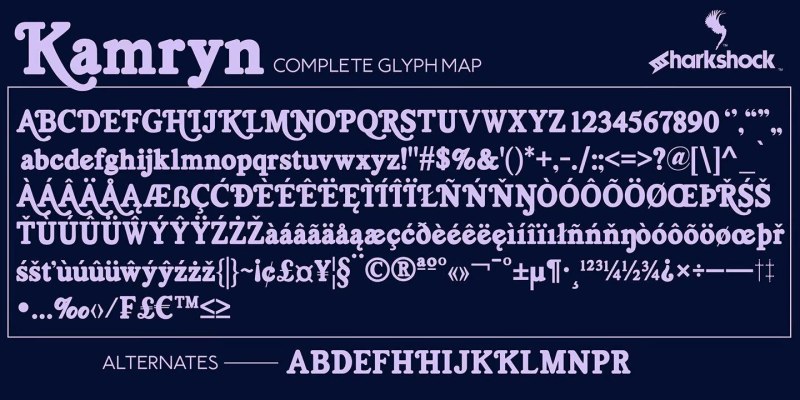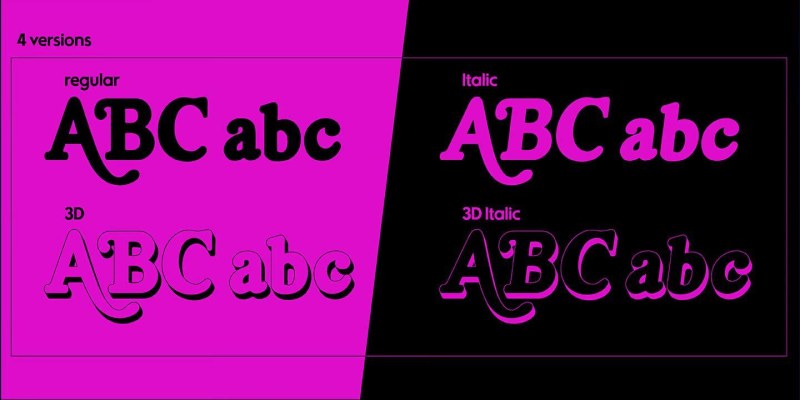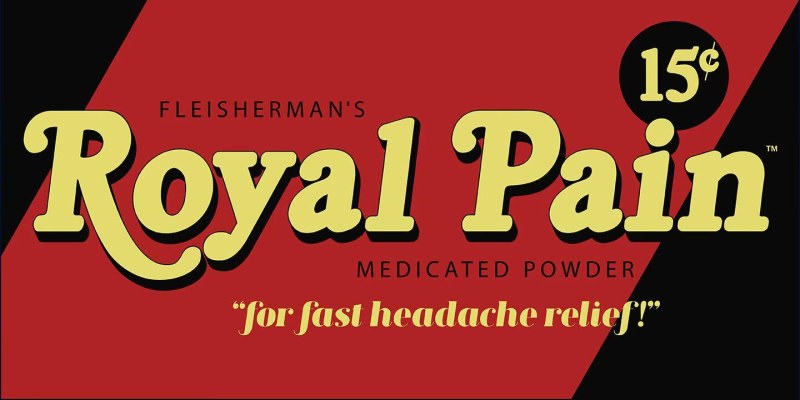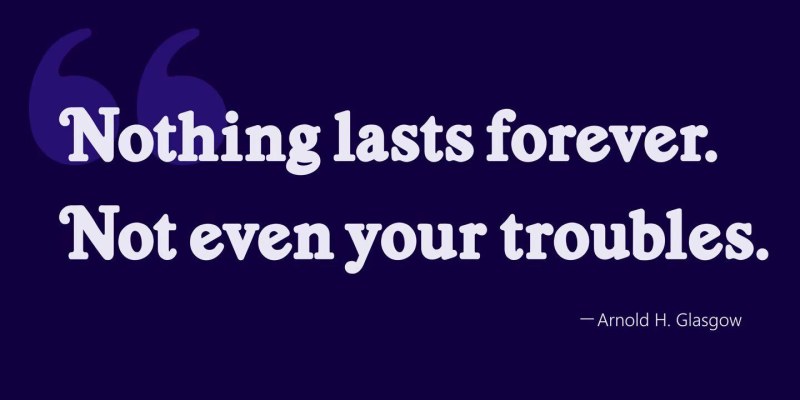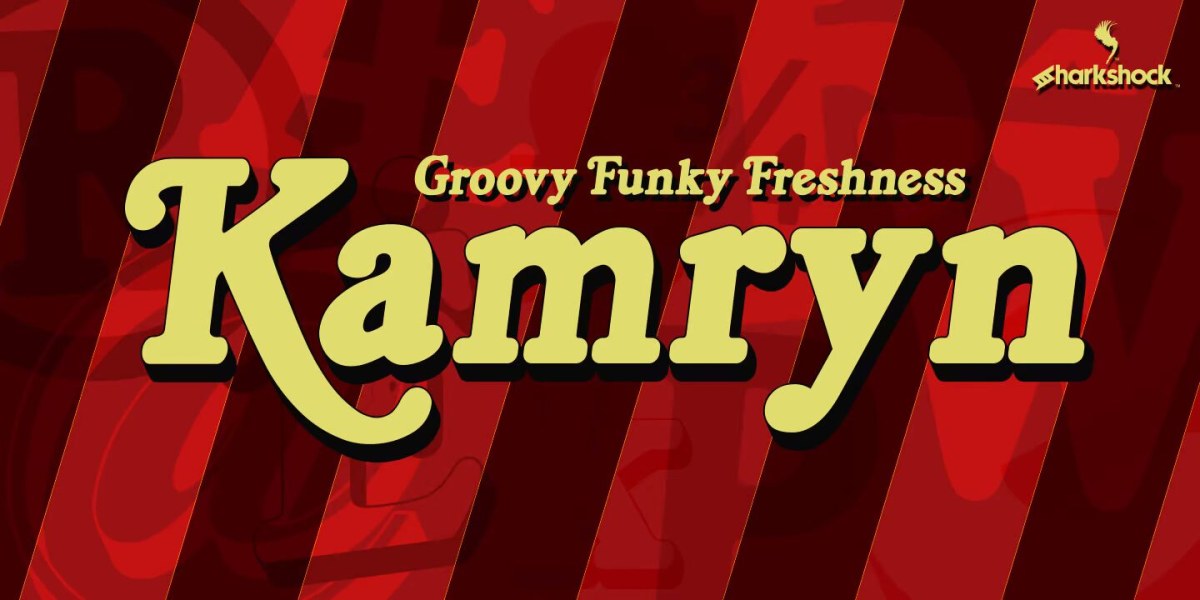
Kamryn Font Family
Kamryn is an updated overhaul of an earlier project. This version retains a distinct retro look with swashes and rounded serifs. This gives it a wholesome feel that will work well in children’s books, 80’s era apparel, or scrapbooking. European accents and extended punctuation were added along with improved kerning and alternates. Overlap may occur in certain uppercase/lowercase combinations. The 3D versions are equipped with several ligatures that correct this.
Where Kamryn Font Family works best
Complete brand systems
With multiple weights, Kamryn Font Family can carry a whole identity — logo, headings, body copy and captions — consistently across print and web.
Websites & apps
Families let you set hierarchy with weight instead of switching typefaces, which keeps interfaces fast and coherent.
Print collateral
Brochures, catalogues and business cards benefit from a family that covers display and text sizes.
What is Kamryn Font Family good for?